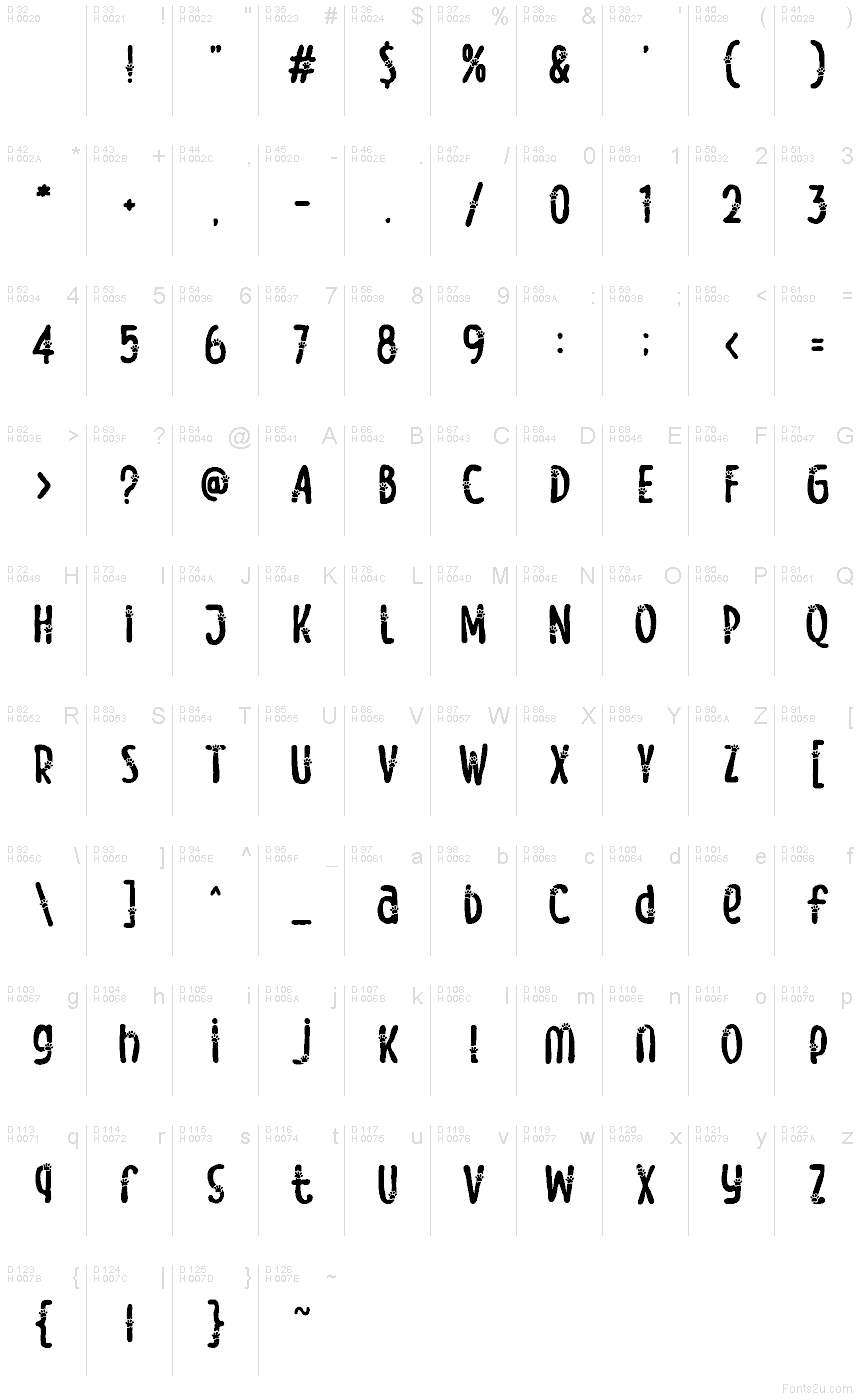
Meow Zilla Paw
Meow Zilla Paw font by PutraCetol Studio is a free decorative display font. Within the Meow Zilla family, it stands out with chunky, soft-edged strokes and playful paw-print cutouts that peek through the letters like tracks in fresh ink. The rhythm is bouncy but readable, with tall, rounded forms that feel friendly and instantly pet-centric.
Using Meow Zilla Paw, headlines gain a fun, tactile charm that shines on pet shop logos, animal rescue posters, kids’ packaging, birthday invites, school fair signage, and social media stickers. This free font loves big sizes and a little extra tracking. Pair it with a simple rounded sans to keep copy clean while the paws do the talking.